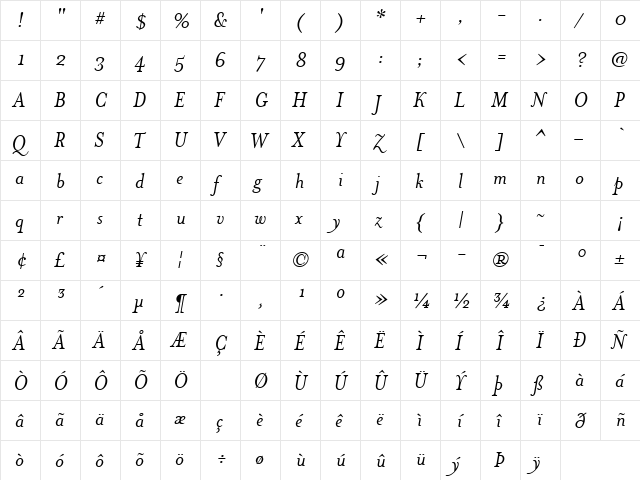
MrsEavesItalic Italic
Design Context for MrsEavesItalic Typeface
MrsEavesItalic offers clean, dependable letterforms without strong stylistic allegiance, making it a practical choice for designers who need flexibility. The dynamic lean of this cut emphasises speed and emphasis in any layout.
Pro Tip: Try MrsEavesItalic for annotation and caption copy alongside an upright companion — the contrast in angle creates a dynamic but ordered typographic system.